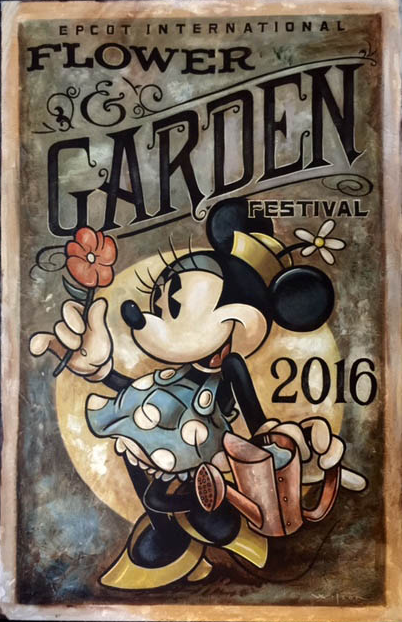
Victorian style font that was inspired by an old advertising letter style used throughout the late 1800's and early 1900's. Font set includes 4 interchangeable versions for maximum creativity. You might also like: Desire